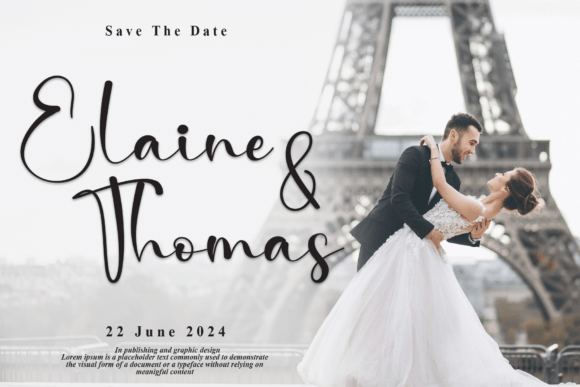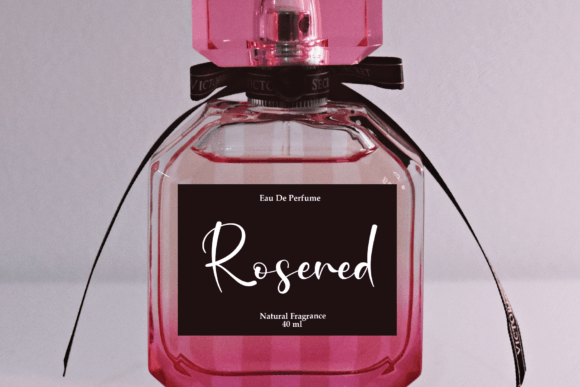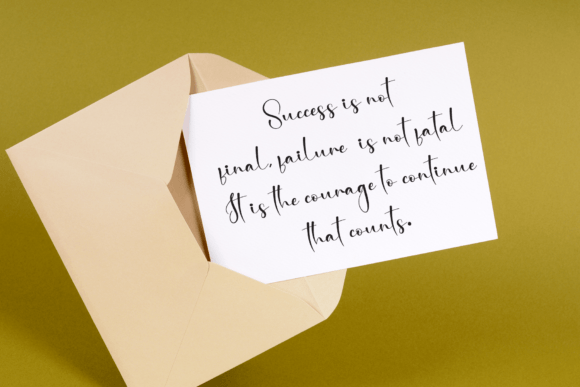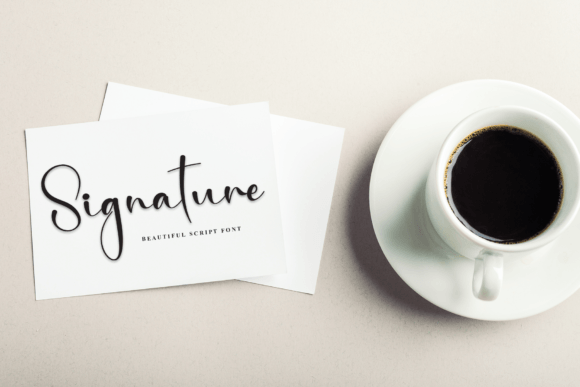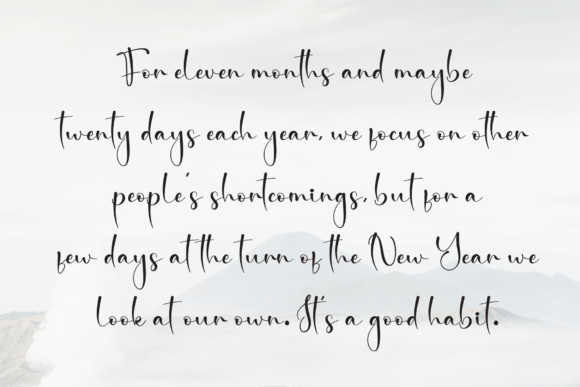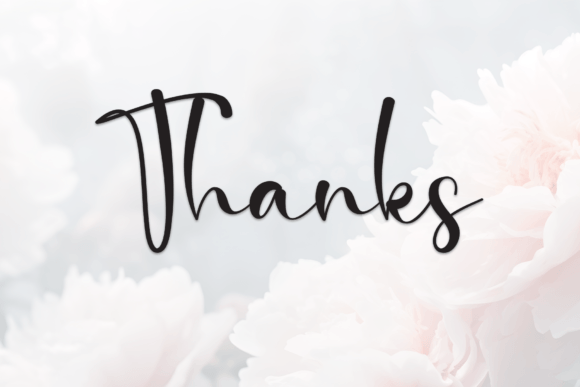
Introducing Beautiful Font: Elevate Your Designs with Elegance
Are you a designer, crafty DIY enthusiast, or social media influencer looking for the perfect font to elevate your creative projects? Look no further than Beautiful Font, a stunning script font that adds a touch of magic to any design. With its elegant and refined aesthetic, Beautiful Font is the ideal choice for turning your ideas into true works of art.
The Story Behind Beautiful Font
Beautiful Font is a carefully crafted script font, designed with a deep understanding of the importance of typography in visual communication. Its creator aimed to develop a font that not only catches the eye but also conveys a sense of sophistication and refinement. The result is a beautiful, flowing script that exudes elegance and poise.
Key Features of Beautiful Font
- Elegant Script Style: Beautiful Font boasts a classic script style with flowing connections and delicate strokes, perfect for creating eye-catching headlines, titles, and quotes.
- Magical Touch: The font’s unique design elements add a touch of whimsy and magic to your designs, making them stand out from the crowd.
- Versatile: Whether you’re working on Instagram graphics, calligraphy projects, or DIY crafts, Beautiful Font adapts seamlessly to various design applications.
- User-Friendly: This font is easy to use, even for those without extensive design experience, making it accessible to a wide range of creatives.
Beautiful Font is an excellent addition to any designer’s or crafter’s toolkit. Its versatility and elegance make it suitable for a wide range of projects, including:
- Instagram Graphics: Elevate your Instagram feed with stunning, professional-looking graphics featuring Beautiful Font.
- Calligraphy Scripts: Use Beautiful Font for calligraphy projects, such as wedding invitations, greeting cards, and quotes.
- DIY Projects: Add a personal touch to your DIY crafts, like scrapbooking, journaling, and paper crafting, with this beautiful script font.
- Branding and Marketing: Incorporate Beautiful Font into your brand identity, advertisements, and marketing materials to convey a sense of sophistication and luxury.
Tips for Using Beautiful Font
To get the most out of Beautiful Font, consider the following tips:
- Mix and Match: Combine Beautiful Font with other fonts to create visually appealing contrast and hierarchy in your designs.
- Experiment with Colors: Pair Beautiful Font with a range of colors to add depth and emotion to your designs.
- Play with Swashes: Take advantage of the font’s swash features to add flair and personality to your text.
Beautiful Font is a game-changer for designers, crafters, and social media enthusiasts looking to add a touch of elegance and sophistication to their creative projects. With its magical script style, versatility, and user-friendly design, this font is sure to inspire and elevate your designs. Whether you’re working on Instagram graphics, calligraphy scripts, or DIY projects, Beautiful Font is the perfect choice for turning your ideas into true works of art.